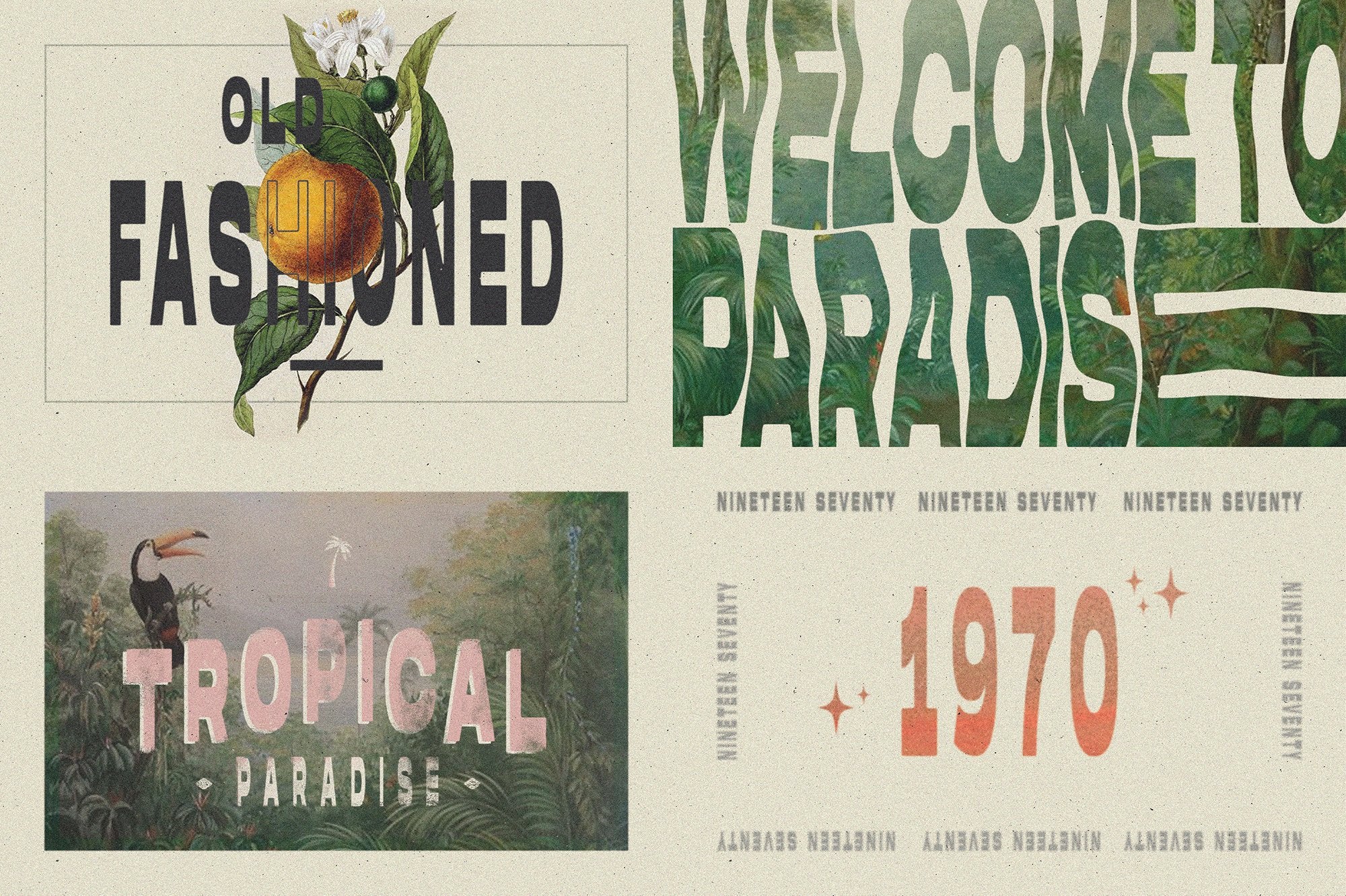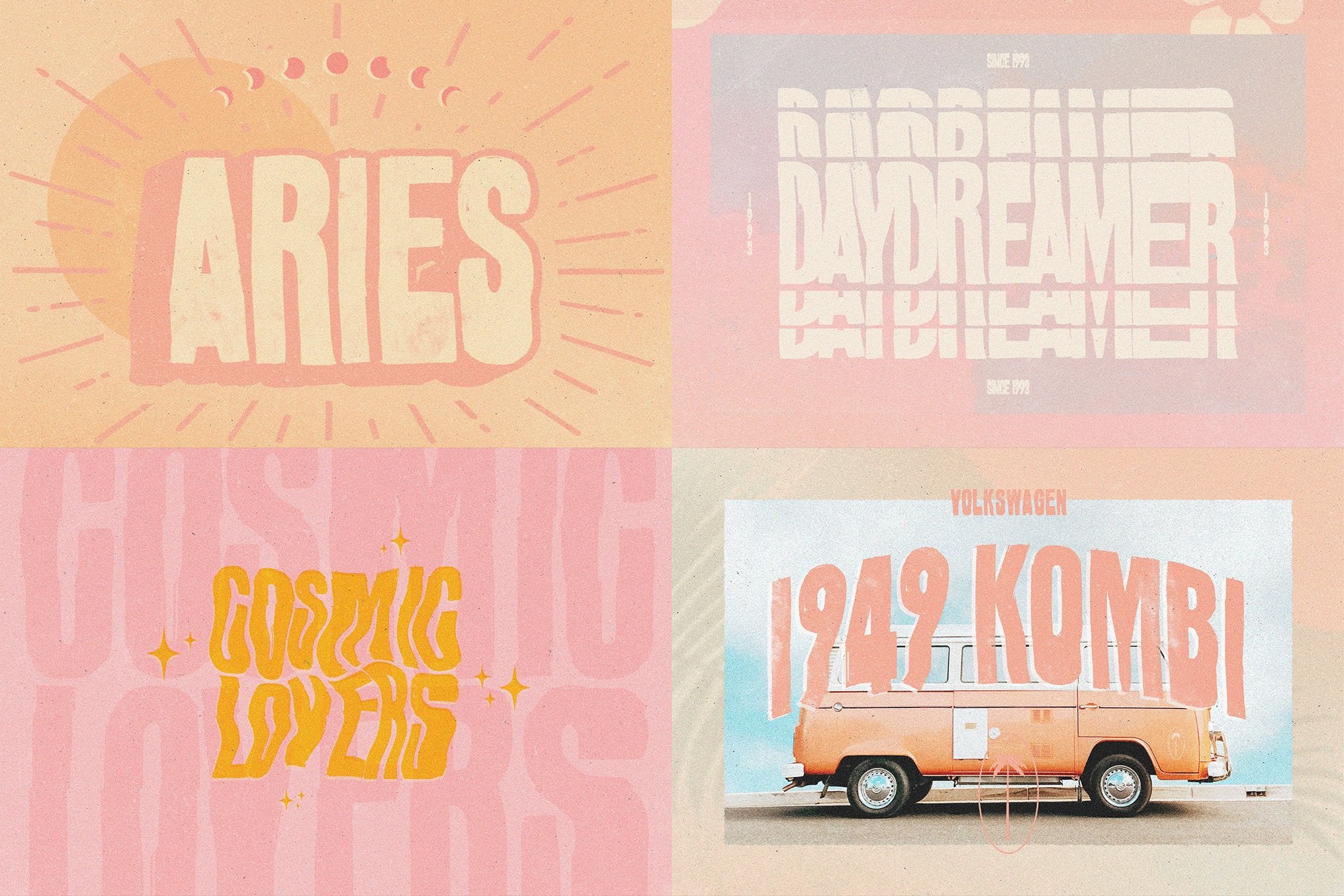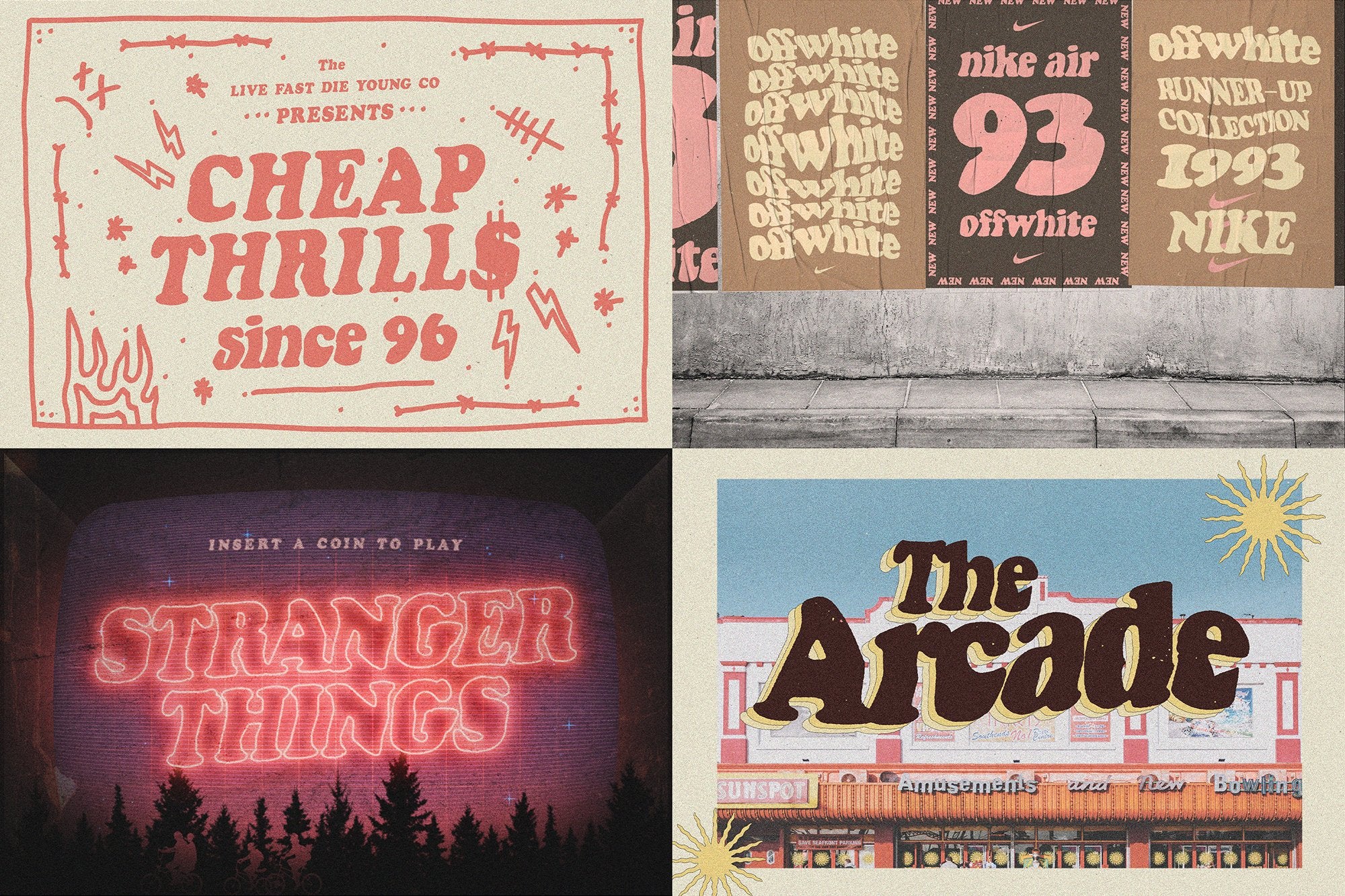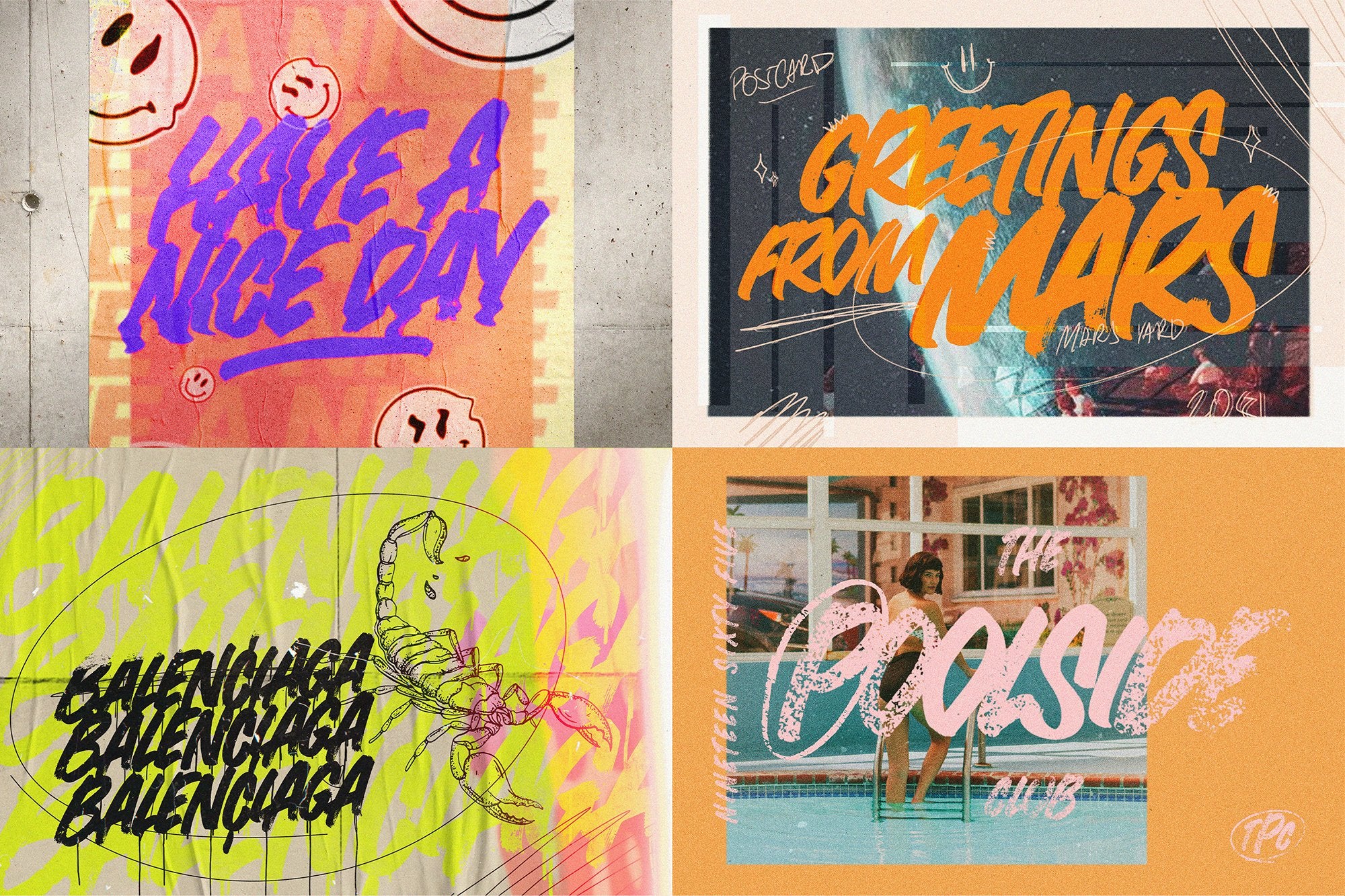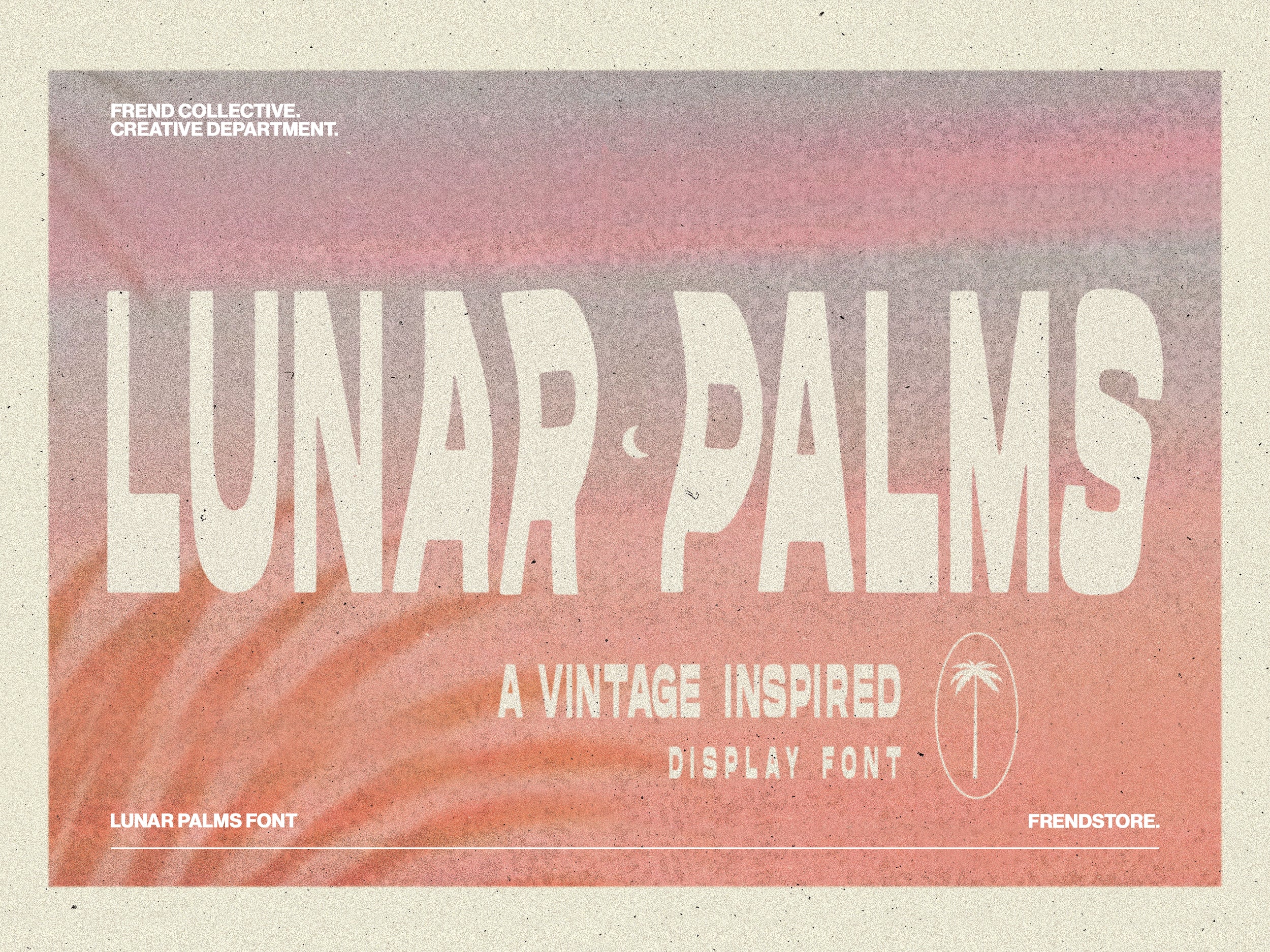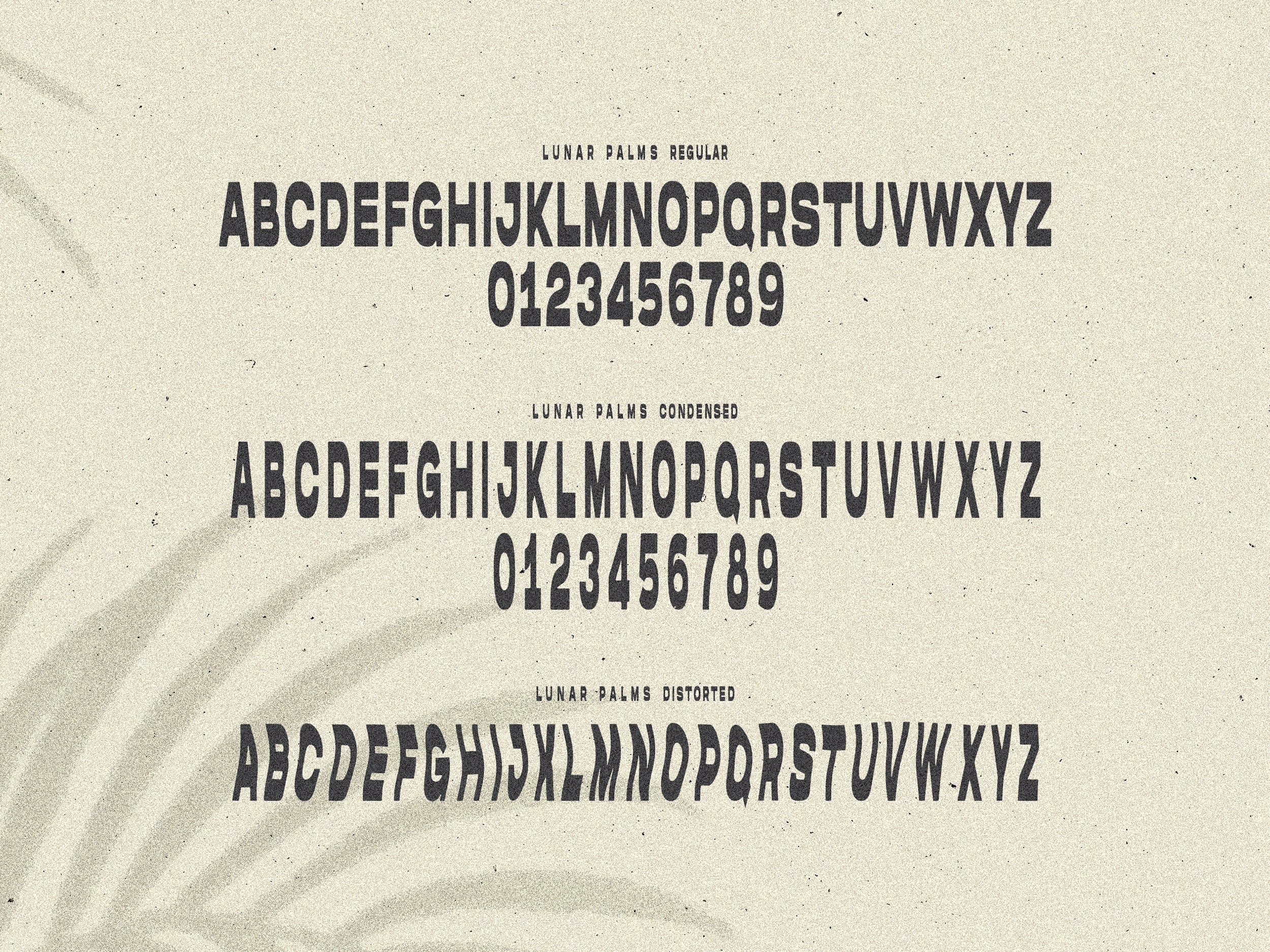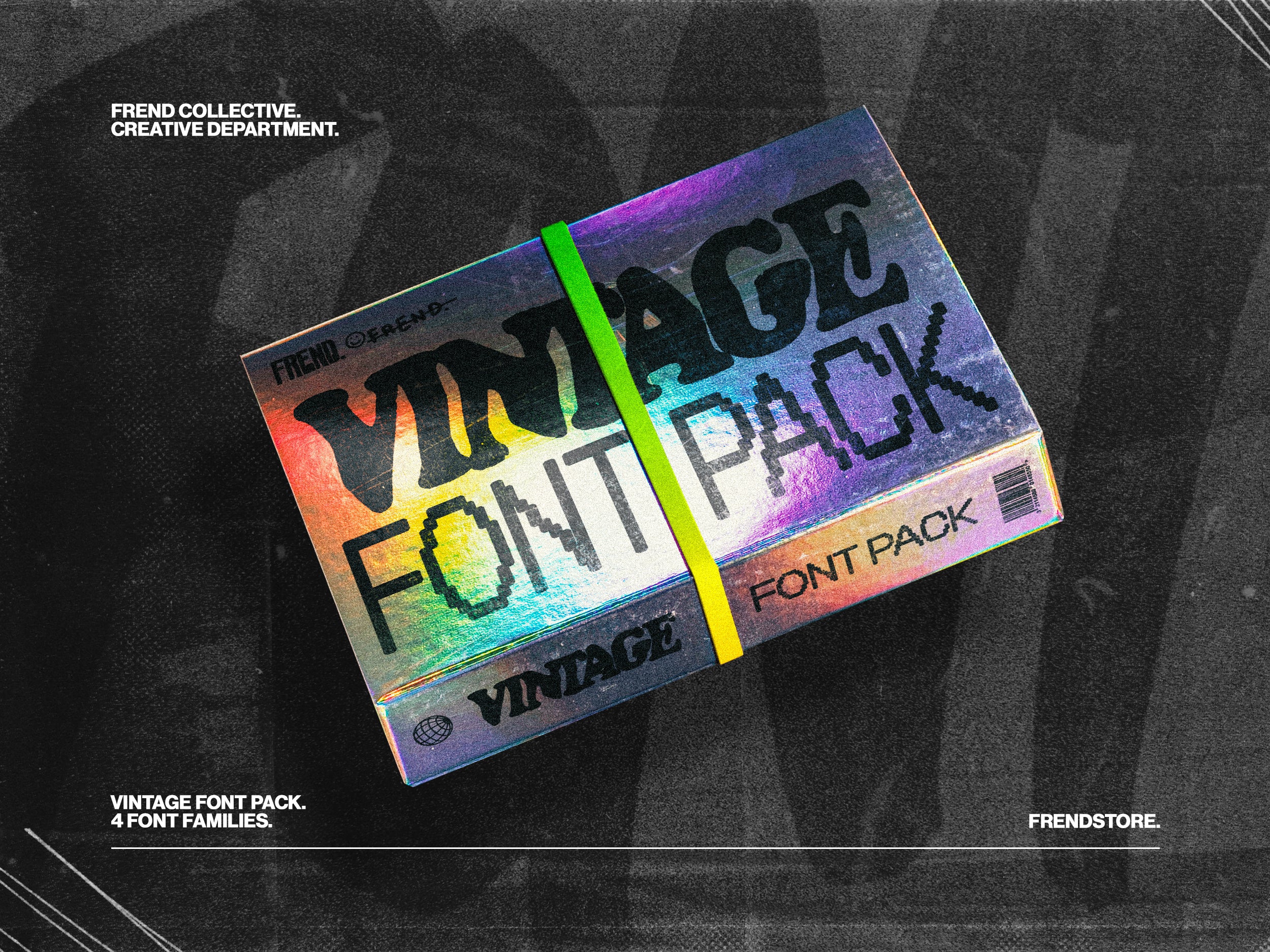
FREND VINTAGE FONT PACK
Introducing "The Vintage" Font Pack
The Vintage Font Bundle is a carefully curated group of recent handwritten retro Font Families that pair perfectly with one another. This is a must have bundle for anyone when starting out, all fonts are high quality and can be used for any project! This Bundle includes 4x Font families and 12x fonts + extras, I would love to see what you can make of these!
Includes: Lunar Palms Font, Acidwash Font, Arcade Font, Milkbar Brush Font.
Features: All Caps Fonts + Extras.